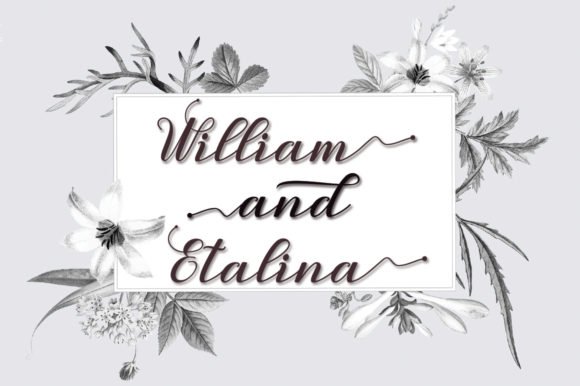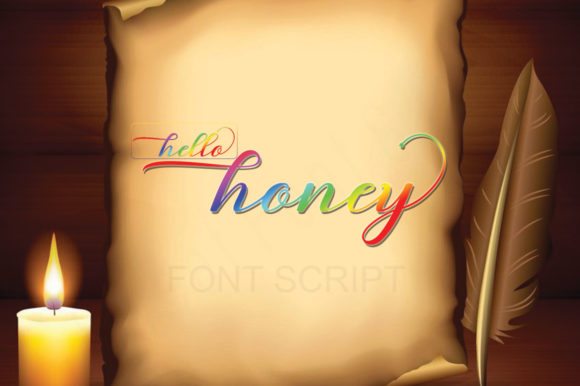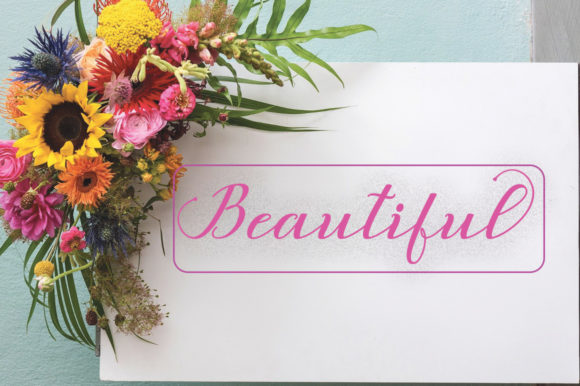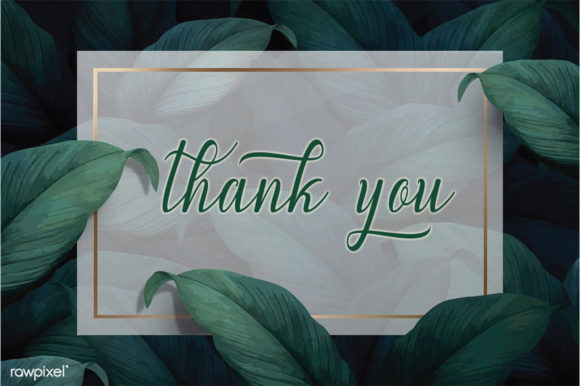
Eyedogan Font: Elevate Your Designs with Elegance and Versatility
Are you a designer or crafter looking for a font that embodies sophistication and style? Look no further than Eyedogan Font. This exceptional handwritten font simplifies elegance into a truly outstanding typeface that will elevate your designs to new heights. With its classy calligraphic influences and contemporary feel, Eyedogan offers the perfect blend of traditional and modern flair.
The Perfect Balance of Elegance and Freshness
Eyedogan Font boasts a unique balance of elegance and freshness, making it an ideal choice for a wide range of design projects. Its calligraphic roots are evident in its flowing lines and refined letterforms, while its contemporary twist ensures it feels fresh and modern. This versatility makes Eyedogan an excellent addition to any designer’s toolkit.
One of the standout features of Eyedogan Font is its incredible versatility. Whether you’re working on a letterhead, title, or stationery, this font is sure to impress. Its elegant and refined appearance makes it perfect for:
• Letterheads and business correspondence
• Title pages and headings
• Stationery and greeting cards
• Branding and packaging design
• Digital and print media
Crafty Ideas Come to Life with Eyedogan
Eyedogan Font is a crafter’s dream come true. Its unique blend of elegance and playfulness makes it perfect for a wide range of crafty projects, such as:
• Handmade cards and invitations
• DIY paper crafts and scrapbooking
• Custom jewelry and accessory design
• Stationery and journaling
What Sets Eyedogan Apart
So, what makes Eyedogan Font so special? Here are just a few key features that set it apart from other fonts:
• Unique blend of calligraphic and contemporary styles
• Exceptional legibility and readability
• Versatile and adaptable for a wide range of design projects
• Elegant and refined appearance
• Fresh and modern feel
Get Creative with Eyedogan Font
Ready to elevate your designs with Eyedogan Font? With its incredible versatility and elegant appearance, this font is sure to become a staple in your design toolkit. Whether you’re a seasoned designer or a crafty DIY enthusiast, Eyedogan Font offers endless possibilities for creative expression.
In conclusion, Eyedogan Font is a truly exceptional handwritten font that simplifies elegance into a single, outstanding typeface. With its unique blend of calligraphic and contemporary styles, this font offers the perfect balance of sophistication and freshness. Whether you’re working on a design project or crafting a DIY masterpiece, Eyedogan Font is the perfect choice for anyone looking to elevate their creative vision.